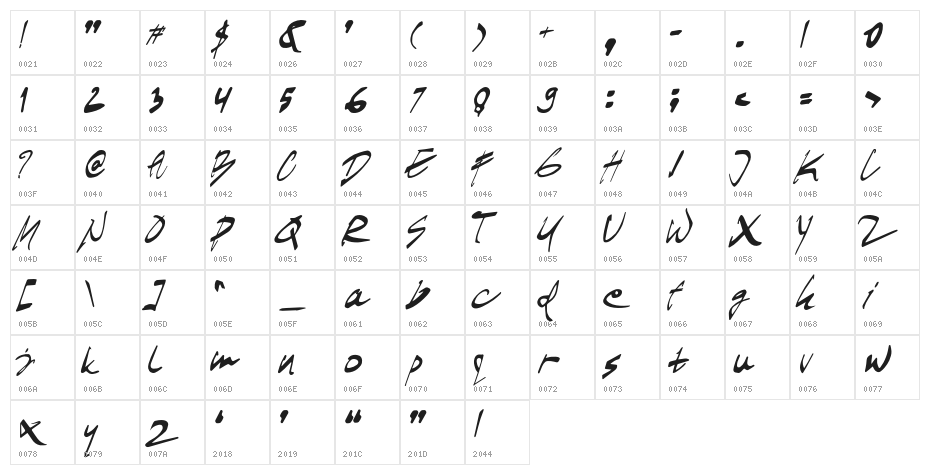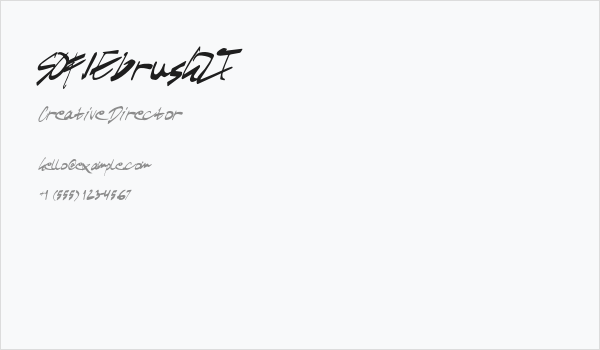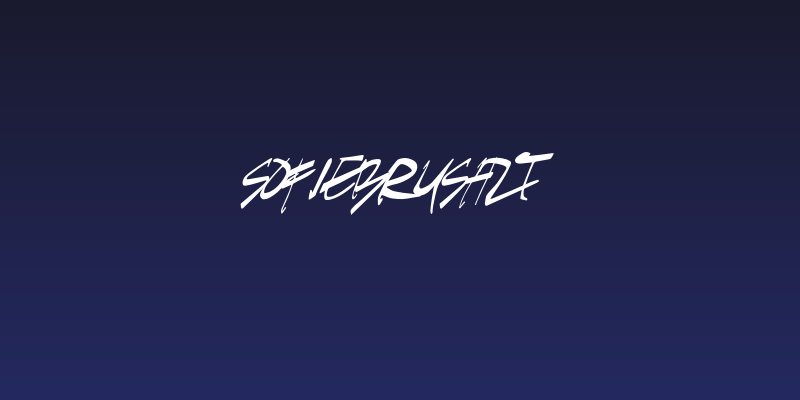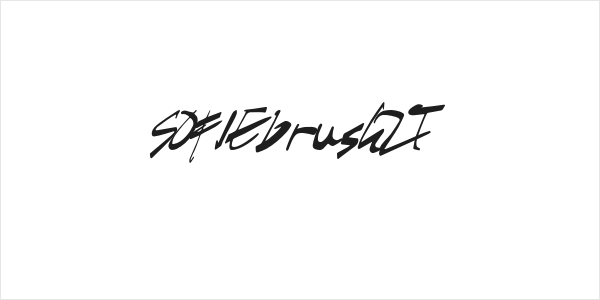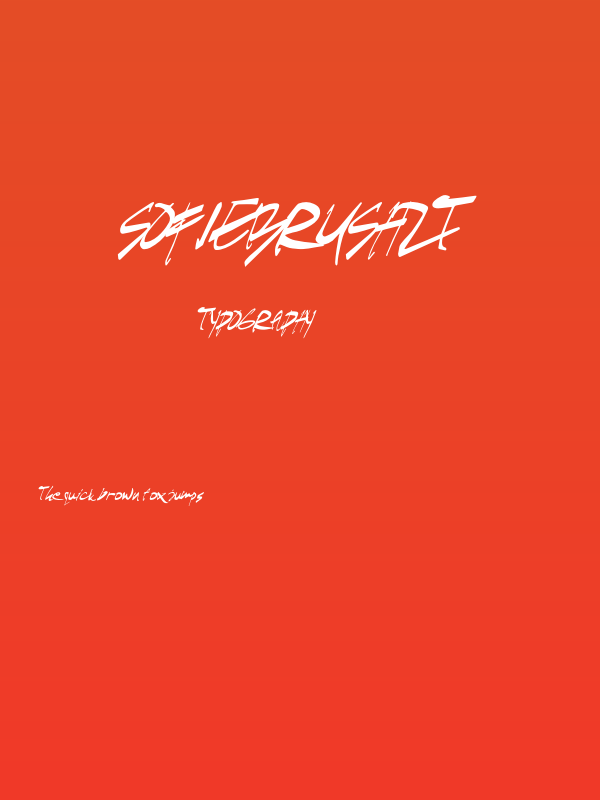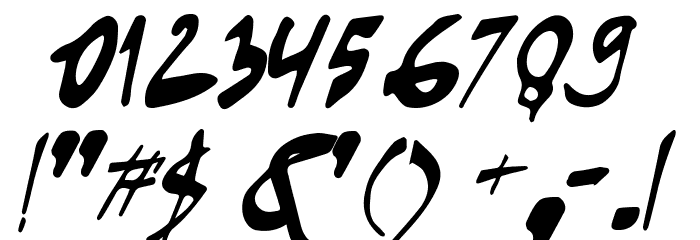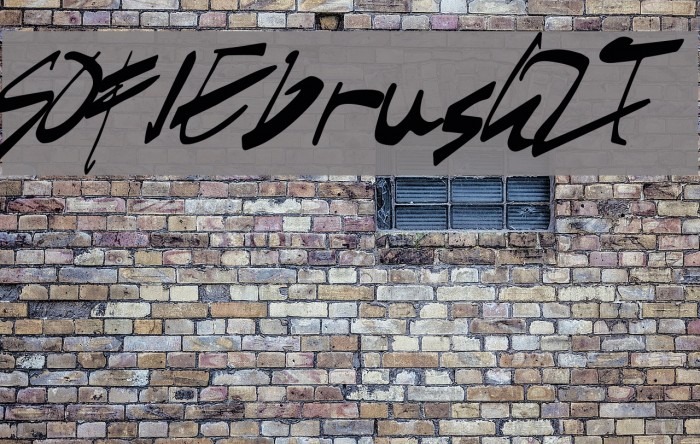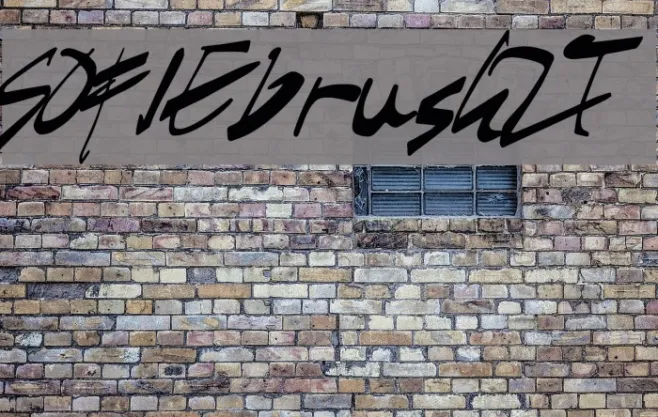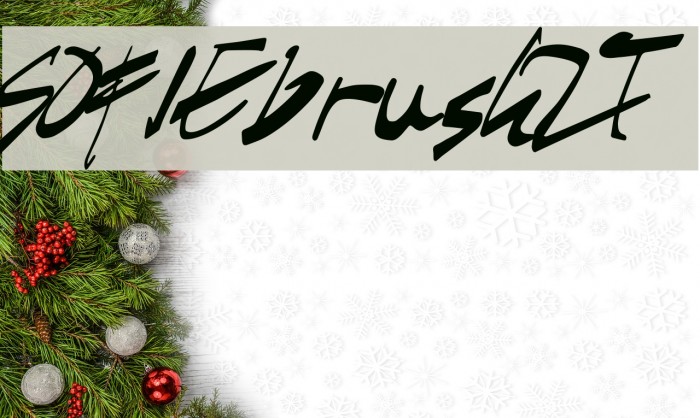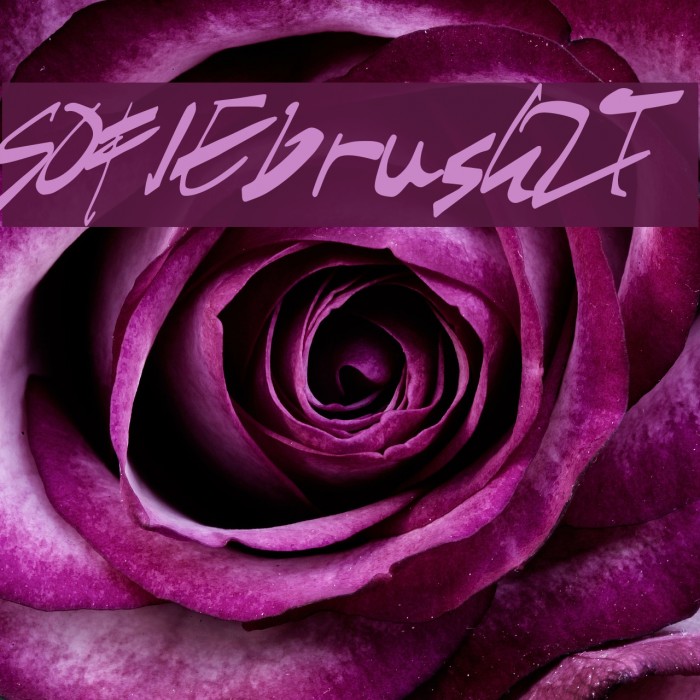
SOFIEbrushZT Font
SOFIEbrushZT Description
This font features a dynamic and expressive brush script style, characterized by its fluid and energetic strokes. The letters are crafted with a sense of motion, giving them a lively and spontaneous appearance. The uppercase letters are bold and prominent, while the lowercase letters maintain a consistent flow, enhancing readability. The numerals and special characters are designed with the same brush-like quality, ensuring a cohesive look across all elements. This font exudes a sense of creativity and artistic flair, making it ideal for projects that require a personal and handcrafted touch.